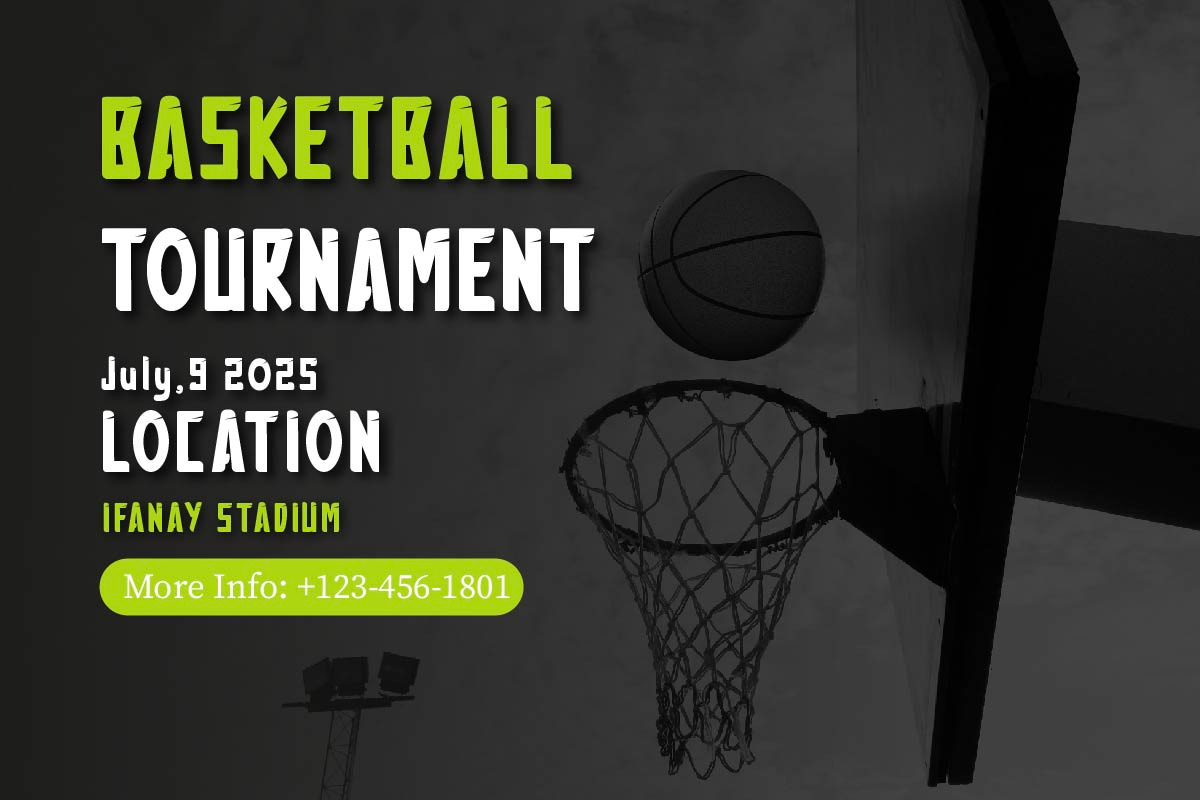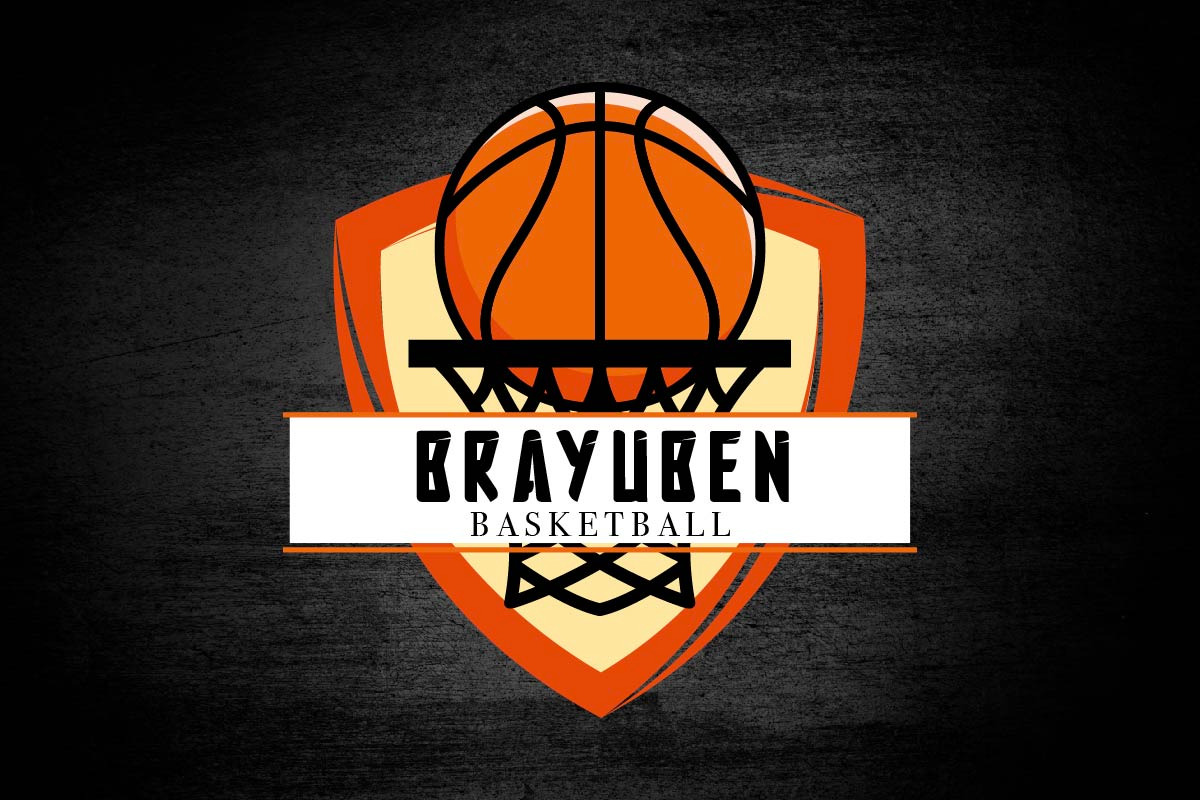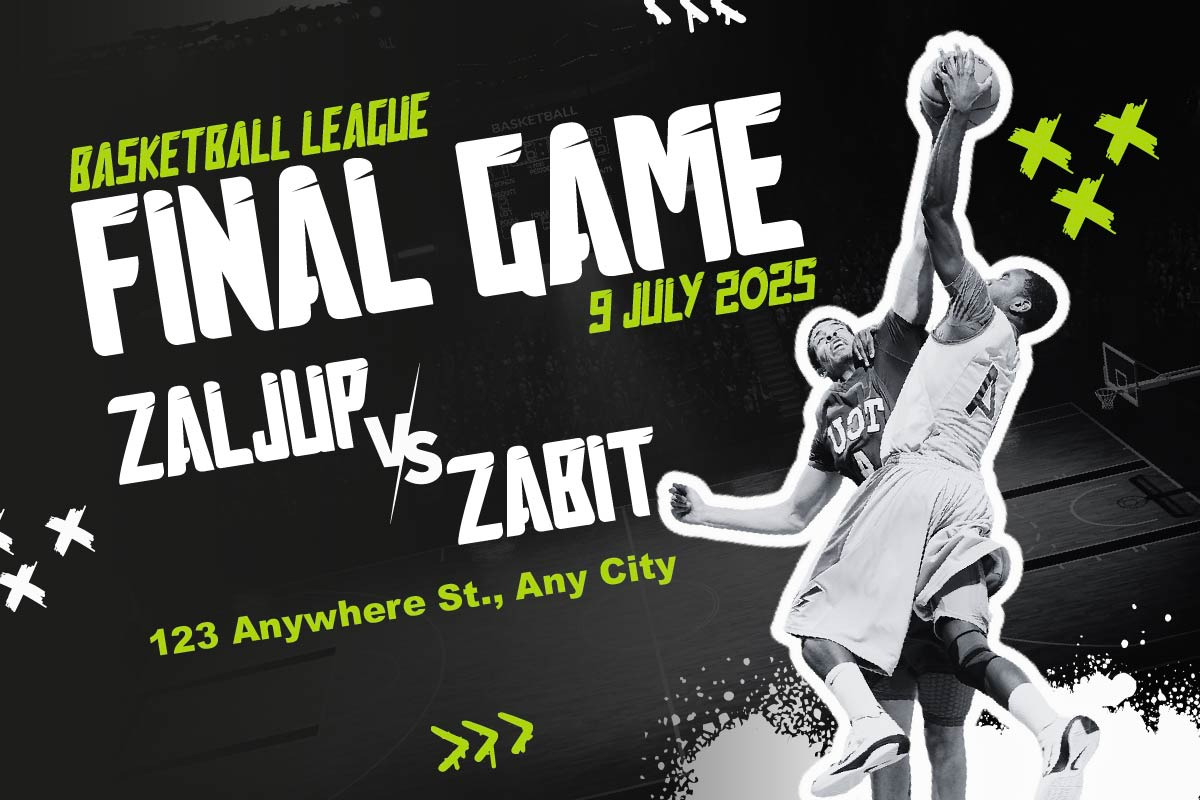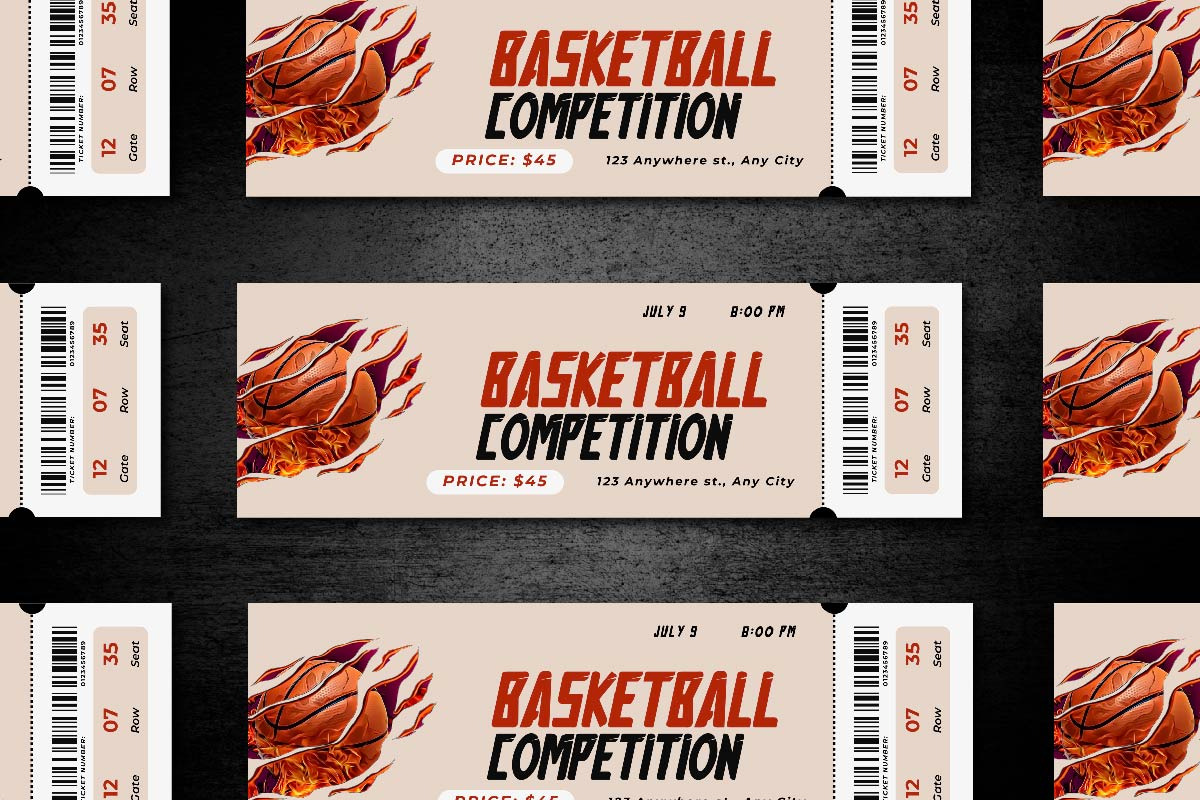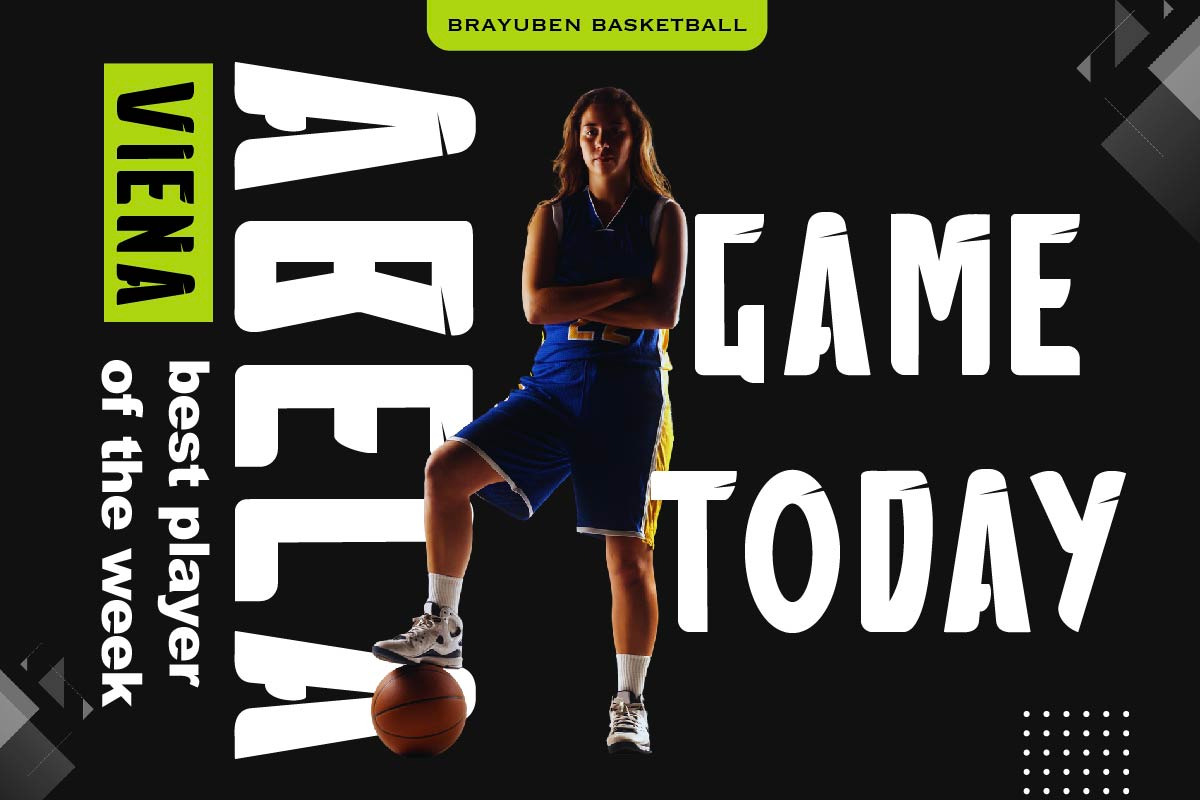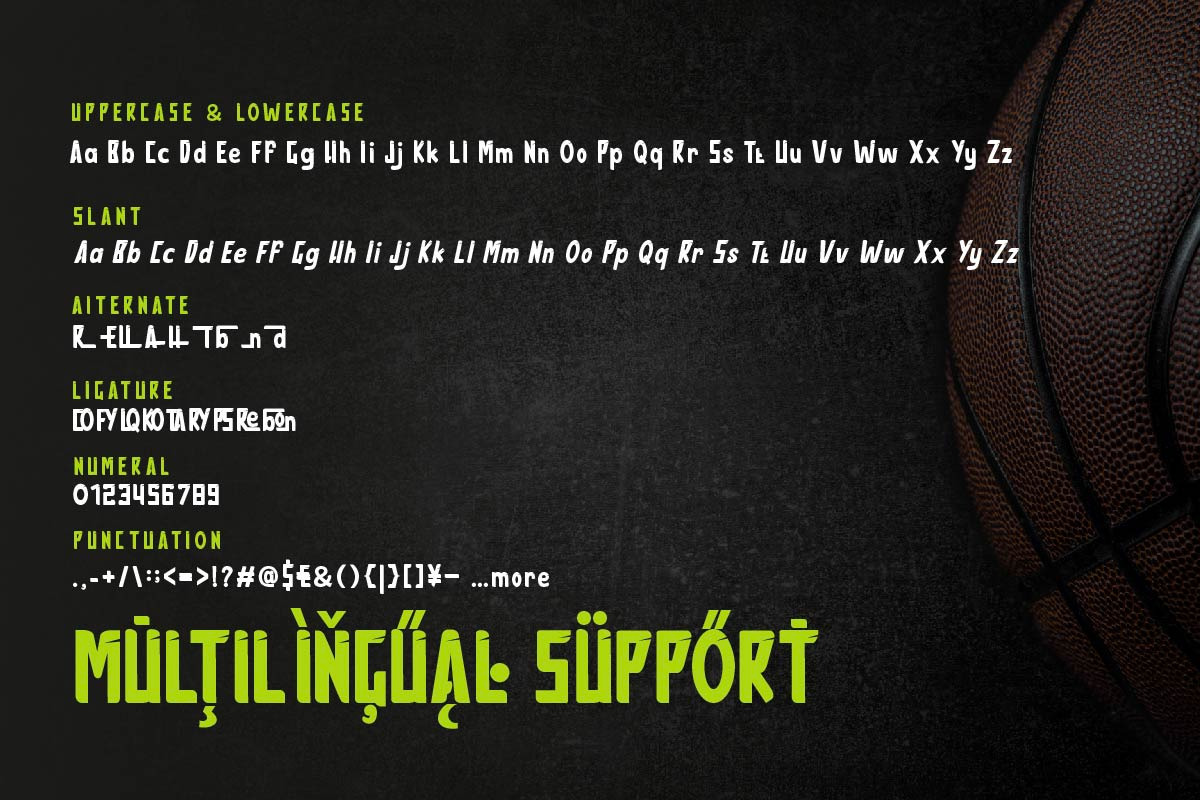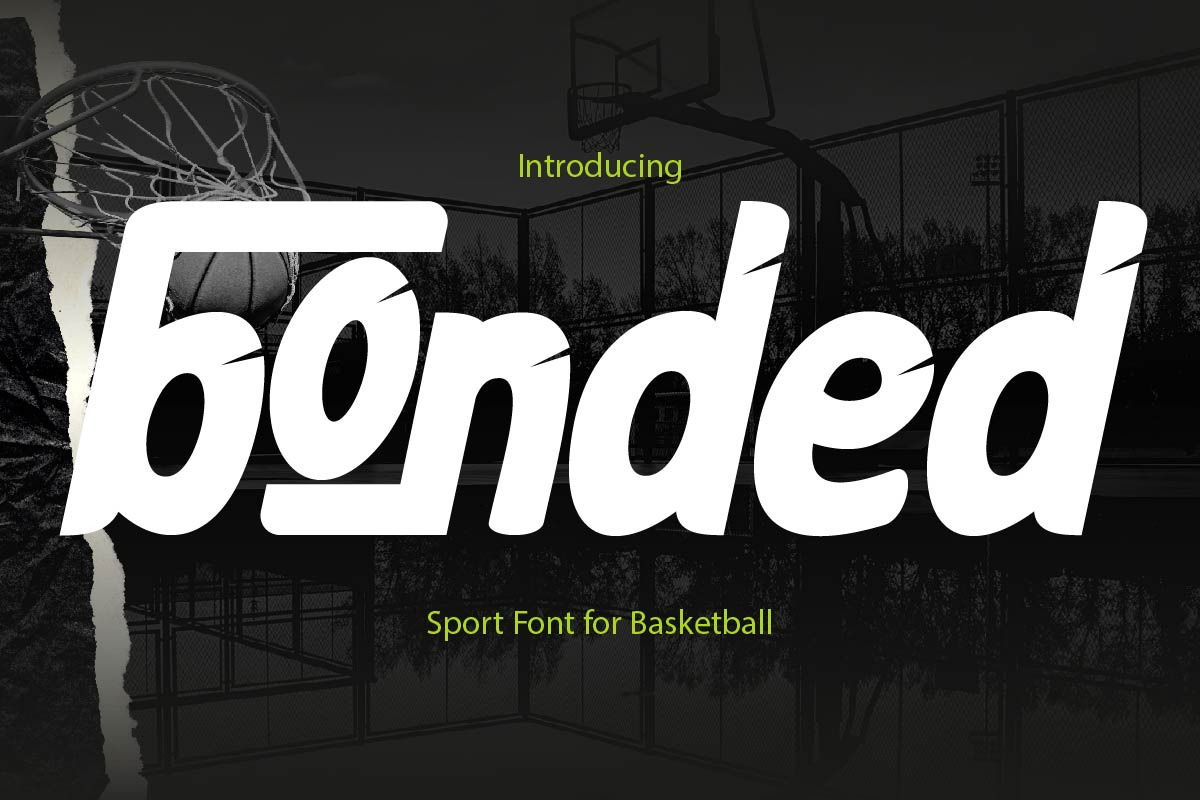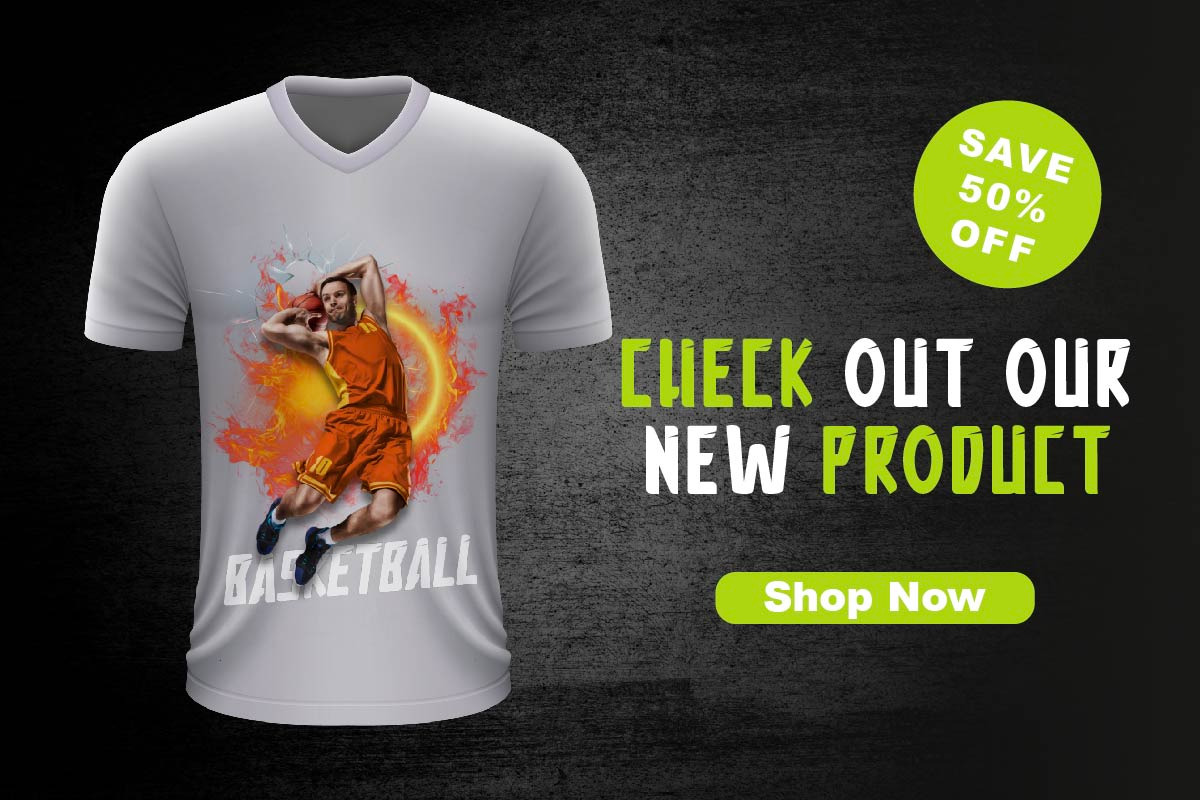
Bonded - Basketball Font for Sport
Unleash the spirit of competition with BONDED, a bold, impactful font designed for basketball events, team branding, and championship graphics. Featuring sharp edges and strong letterforms, this typeface is perfect for jerseys, posters, and promotional materials. Elevate your sports design projects with BONDED, ensuring your message is bold, loud, and full of action. Ideal for basketball tournaments, player stats, and MVP announcements.
- Fonts include Multilingual: Support for 85 languages. Afrikaans, Albanian, Asu, Basque, Bemba, Bena, Breton, Catalan, Chiga, Cornish, Croatian, Czech, Danish, Dutch, Embu, English, Esperanto, Estonian, Filipino, Finnish, French, Friulian, Galician, Gusii, Hungarian, Indonesian, Irish, Italian, Kabuverdianu, Kalenjin, Kamba, Kikuyu, Kinyarwanda, Latvian, Lithuanian, Lower, Sorbian, Luo, Luxembourgish, Luyia, Machame, Makhuwa-Meetto, Makonde, Malagasy, Maltese, Manx, Meru, Morisyen, North, Ndebele, Norwegian Bokmål, Norwegian Nynorsk, Nyankole, Oromo, Polish, Portuguese, Quechua, Romanian, Romansh, Rombo, Rundi, Rwa, Samburu, Sango, Sangu, Scottish, Gaelic, Sena, Serbian, Shambala, Shona, Slovak, Slovenian, Soga, Somali, Spanish, Swahili, Swedish, Swiss German, Taita, Teso, Turkish, Upper Sorbian, Uzbek (Latin), Volapük, Vunjo, Walser, Zulu.